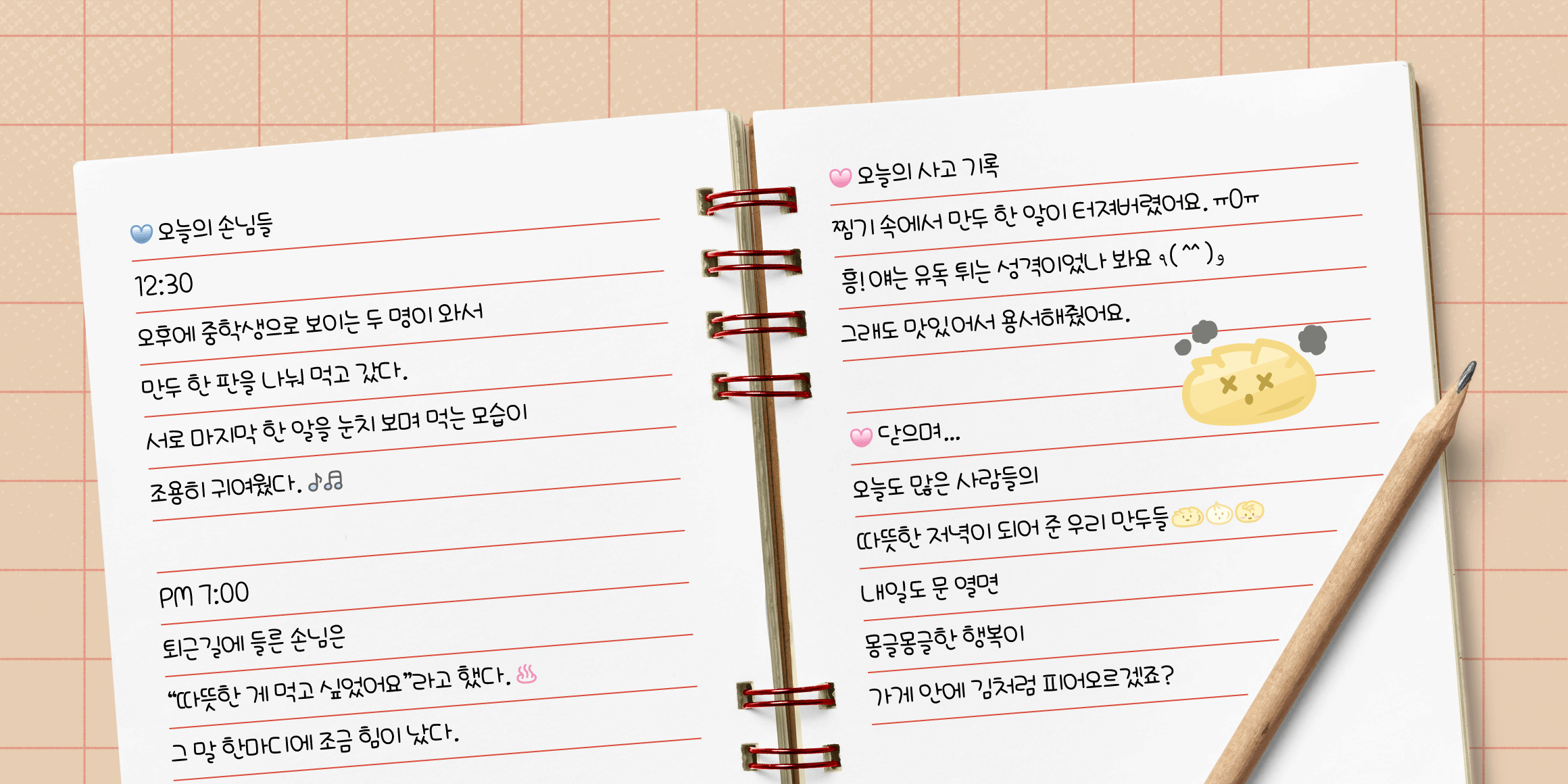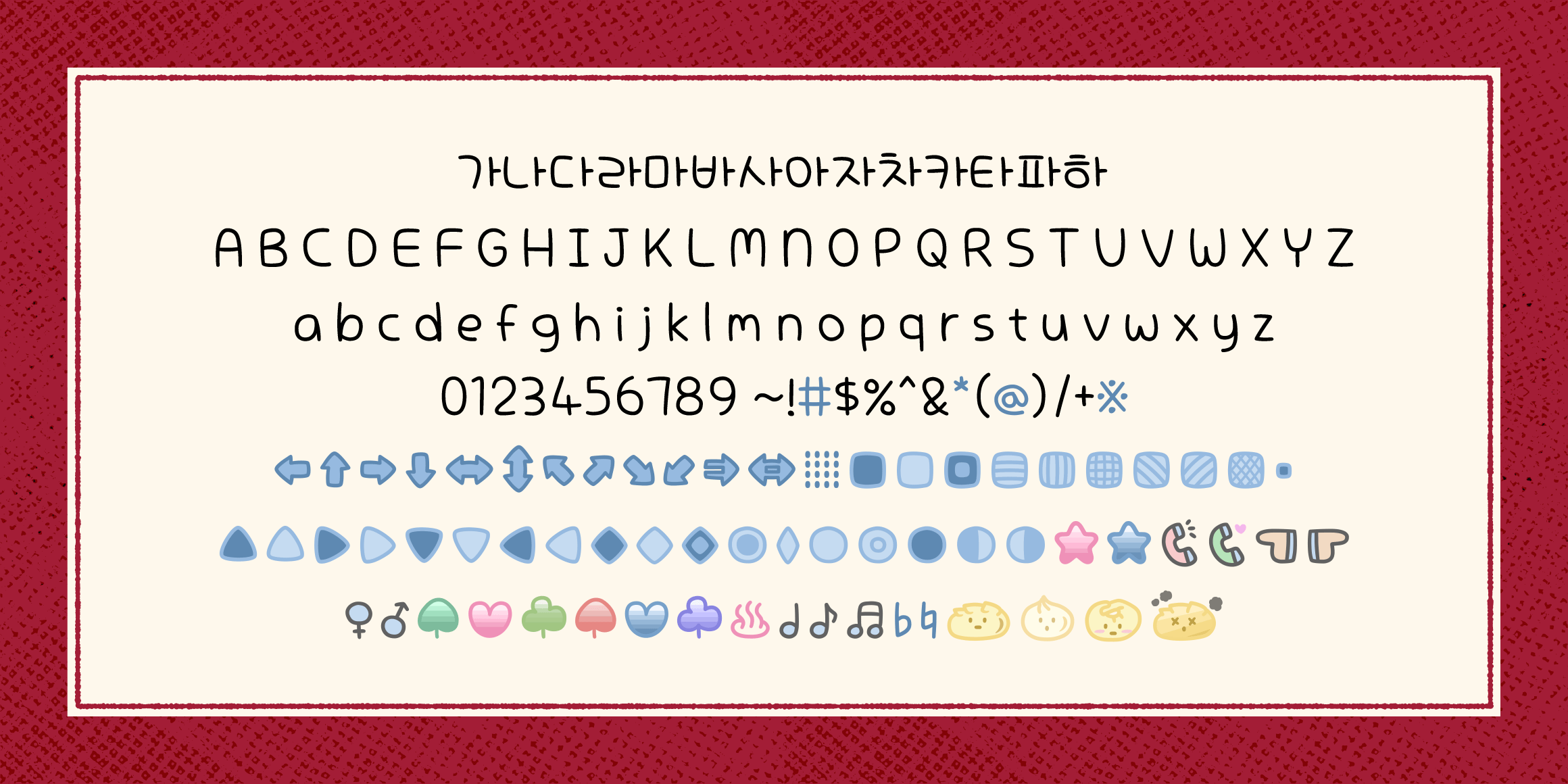
JWhynotMandu
Jikjisoft
Just like a dumpling rolling round and round,
this handwriting-style font has a soft, rounded feel.
The enlarged initial consonants make it even cuter,
and its many curves create a gentle, cozy impression.
The letters are wide with plenty of inner space,
giving the overall design a relaxed and comfortable mood.
The character ‘ㅇ’ has a slightly squished, dumpling-like roundness, rather than a typical perfect circle.
The final consonant ‘ㄹ’ has a larger, more open upper space,
allowing it to harmonize naturally with the oversized initial consonants.